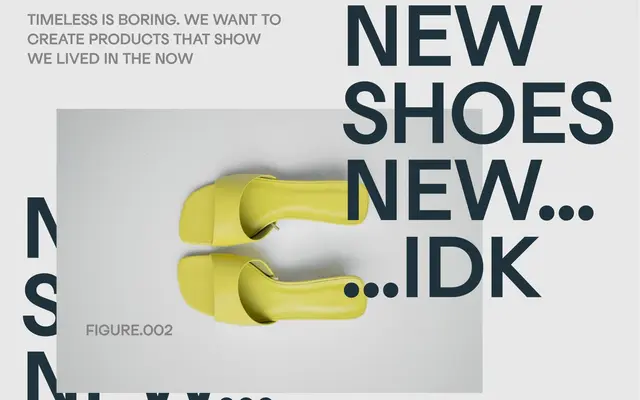
A single-weight geometric sans drawn from the mid-century modern tradition, covering Latin Extended with a clean, even stroke.
Hanno is a geometric sans in the mid-century modern vein, released by That That Type in a single Regular weight. Coverage extends across Basic Latin, Latin-1 Supplement and Latin Extended-A, giving it a reasonable reach across Western and Central European languages. At present there are no additional weights, italics or condensed cuts, making it a focused offering suited to display and branding work where one style is enough.
Described explicitly as a mid-century modern sans serif, placing it in the geometric sans tradition with the even stroke weights and open forms typical of that era.